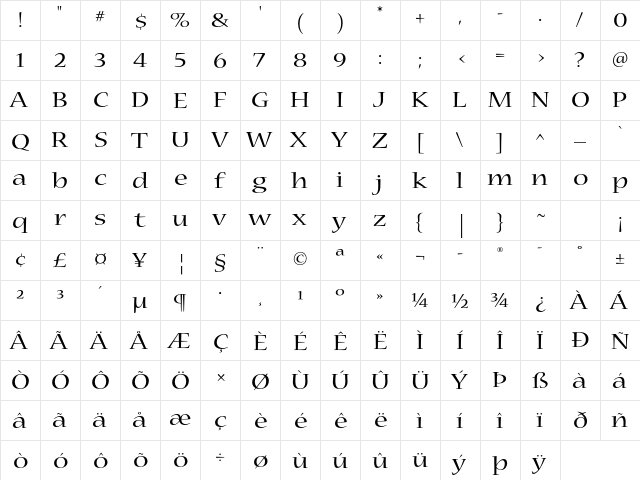
Nueva Std Extended
| Designer | Carol Twombly |
Design Context for Nueva Std Typeface
Nueva Std takes a measured approach to typography — its balanced proportions and neutral character make it a reliable workhorse for both digital and print work.